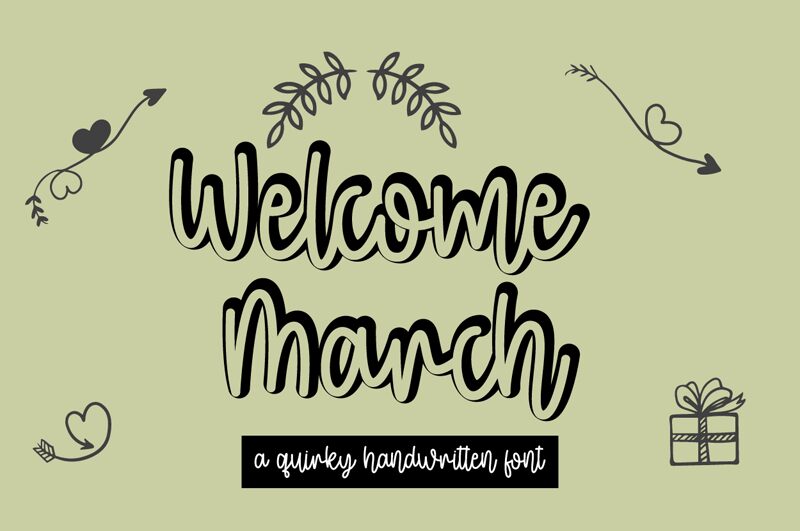
Welcome March
Welcome March is a stunning handwritten font designed by Letter Art Studio. Its semi-light weight gives it a delicate and elegant feel, perfect for projects that require a touch of sophistication. This font is suitable for various creative projects such as wedding invitations, branding materials, blog headers, and social media graphics. With its unique handwritten style, Welcome March will add a personal and charming touch to any project you use it on. Its legibility and whimsical vibe make it perfect for designs that require an artistic flair without sacrificing readability. Get creative with Welcome March today!